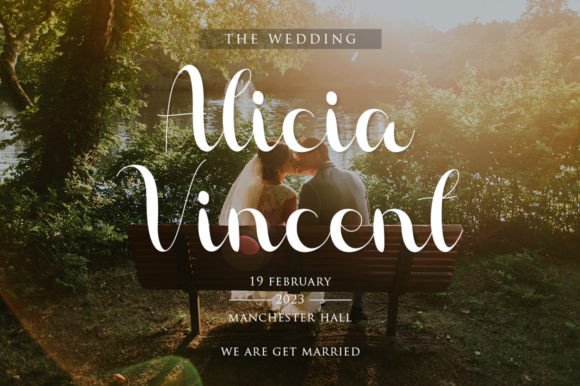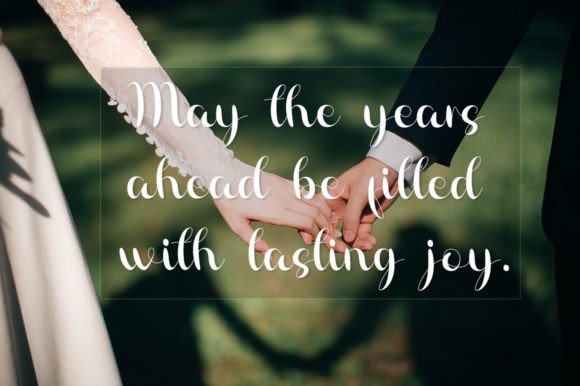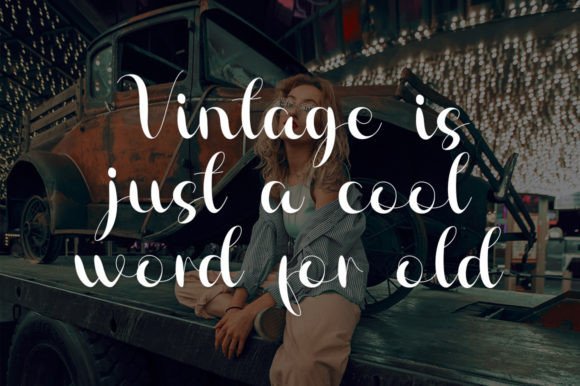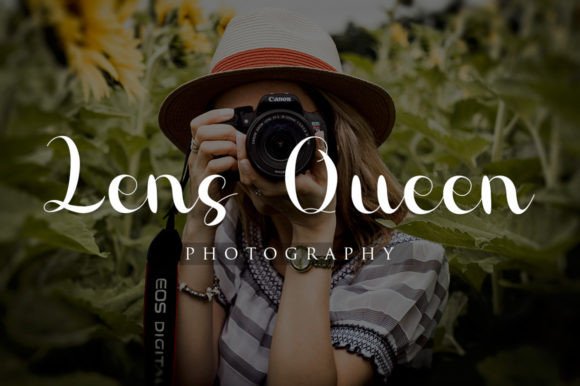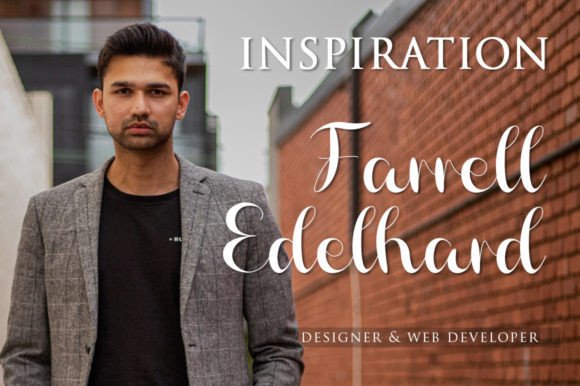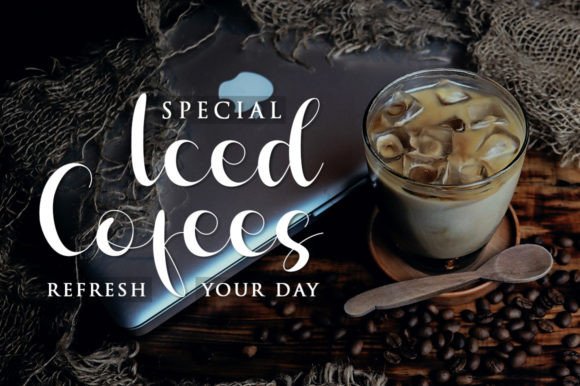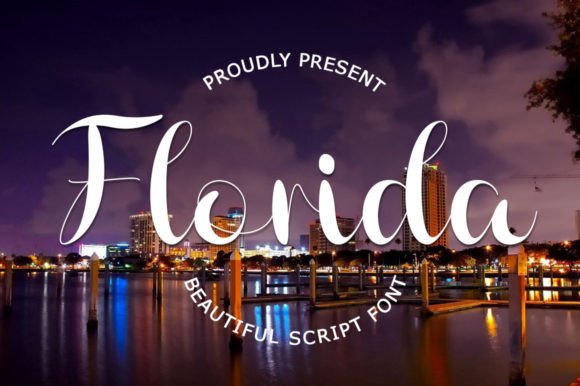
Introducing Florida Font: The Ultimate Calligraphy Typeface for Luxurious Designs
Are you a designer or crafter looking for a typeface that exudes romance, sweetness, and luxury? Look no further than Florida Font, a stunning calligraphy typeface that will elevate your design projects to new heights. With its unique and elegant characters that dance along the baseline, Florida Font is the perfect choice for anyone seeking to add a touch of sophistication and glamour to their work.
The Characteristics of Florida Font
Florida Font is a beautifully crafted calligraphy typeface that boasts a range of distinctive characteristics. Its characters are designed to flow effortlessly along the baseline, creating a sense of movement and fluidity that is both visually appealing and engaging. The font features a romantic and sweet aesthetic, with delicate lines and curves that evoke a sense of nostalgia and whimsy.
Adding a Luxury Spark to Your Designs
Whether you’re working on a branding project, a wedding invitation, or a packaging design, Florida Font is the perfect choice for adding a luxury spark to your work. Its elegant and sophisticated aesthetic makes it ideal for high-end designs, while its playful and whimsical nature ensures that it will also appeal to those looking for a more creative and artistic approach.
Why Designers and Crafters Love Florida Font
So why do designers and crafters love Florida Font? For starters, its unique and elegant design makes it a standout in any design project. The font is also highly versatile, and can be used in a range of different contexts, from digital designs to print materials. Additionally, Florida Font is incredibly easy to use, with a simple and intuitive design that makes it easy to incorporate into your work.
The Benefits of Using Florida Font
There are many benefits to using Florida Font in your design projects. Some of the key advantages include:
• Elegant and sophisticated aesthetic: Florida Font adds a touch of luxury and glamour to any design project.
• Highly versatile: The font can be used in a range of different contexts, from digital designs to print materials.
• Easy to use: Florida Font has a simple and intuitive design that makes it easy to incorporate into your work.
• Unique and eye-catching: The font’s distinctive characters and flowing design make it a standout in any design project.
How to Use Florida Font in Your Designs
Using Florida Font in your designs is easy. Here are a few tips to get you started:
• Pair it with a simple background: Florida Font looks best when paired with a simple background that allows the font to take center stage.
• Experiment with different colors: The font looks great in a range of different colors, from bold and bright to soft and pastel.
• Use it sparingly: Florida Font is a statement font, so use it sparingly to add a touch of luxury and glamour to your designs.
In conclusion, Florida Font is a stunning calligraphy typeface that is perfect for designers and crafters looking to add a touch of luxury and glamour to their work. With its elegant and sophisticated aesthetic, highly versatile design, and ease of use, Florida Font is the ultimate choice for anyone seeking to create beautiful and eye-catching designs. So why wait? Download Florida Font today and start creating your own luxurious designs!